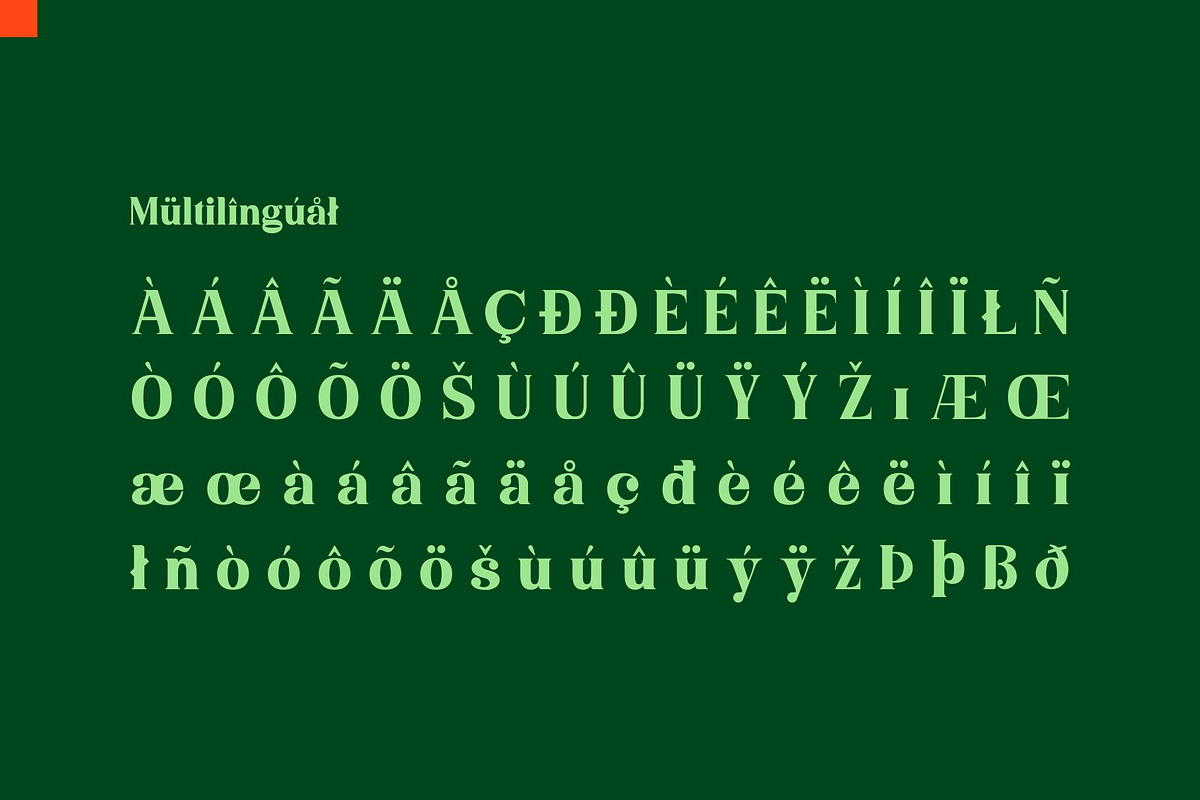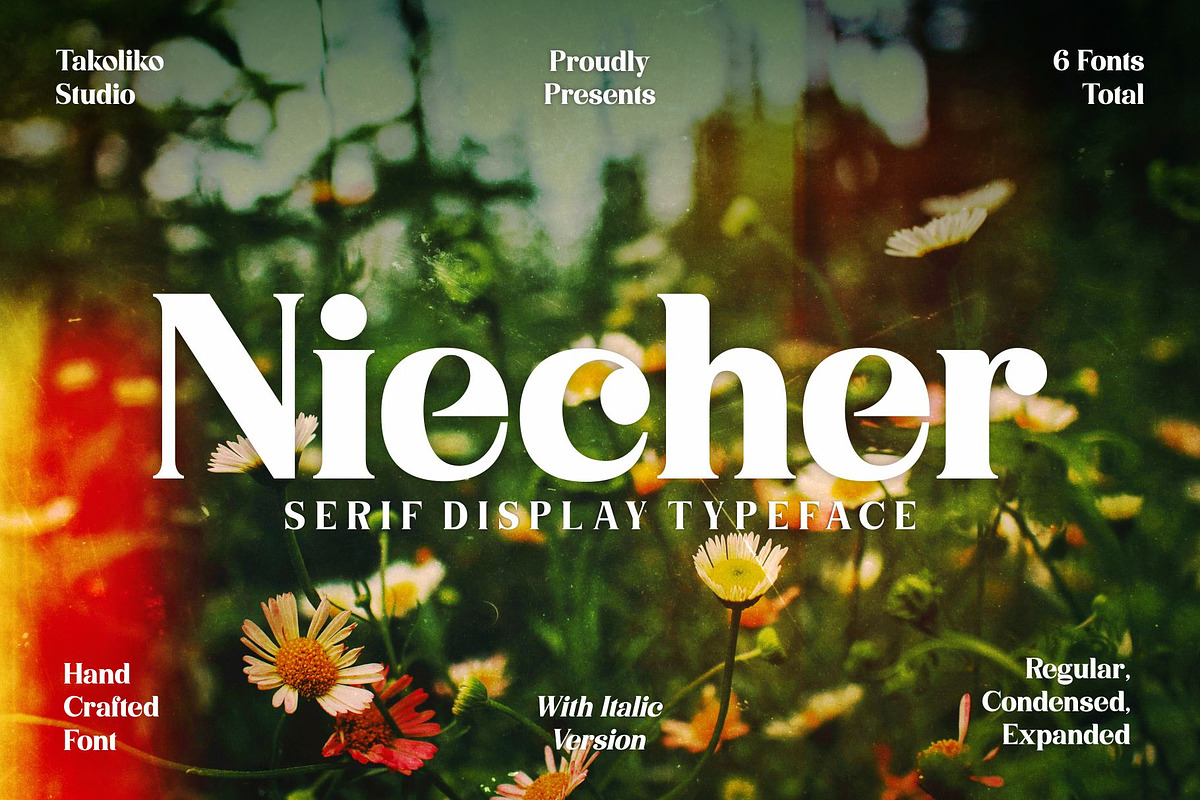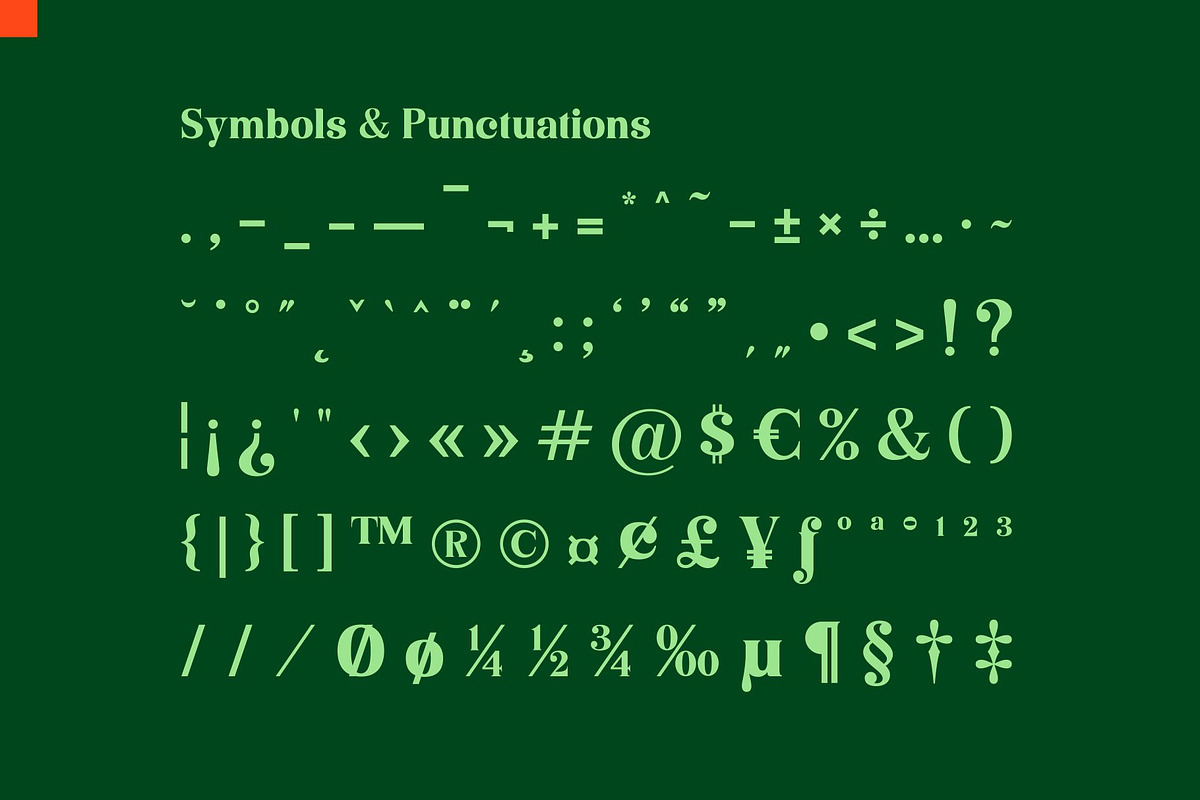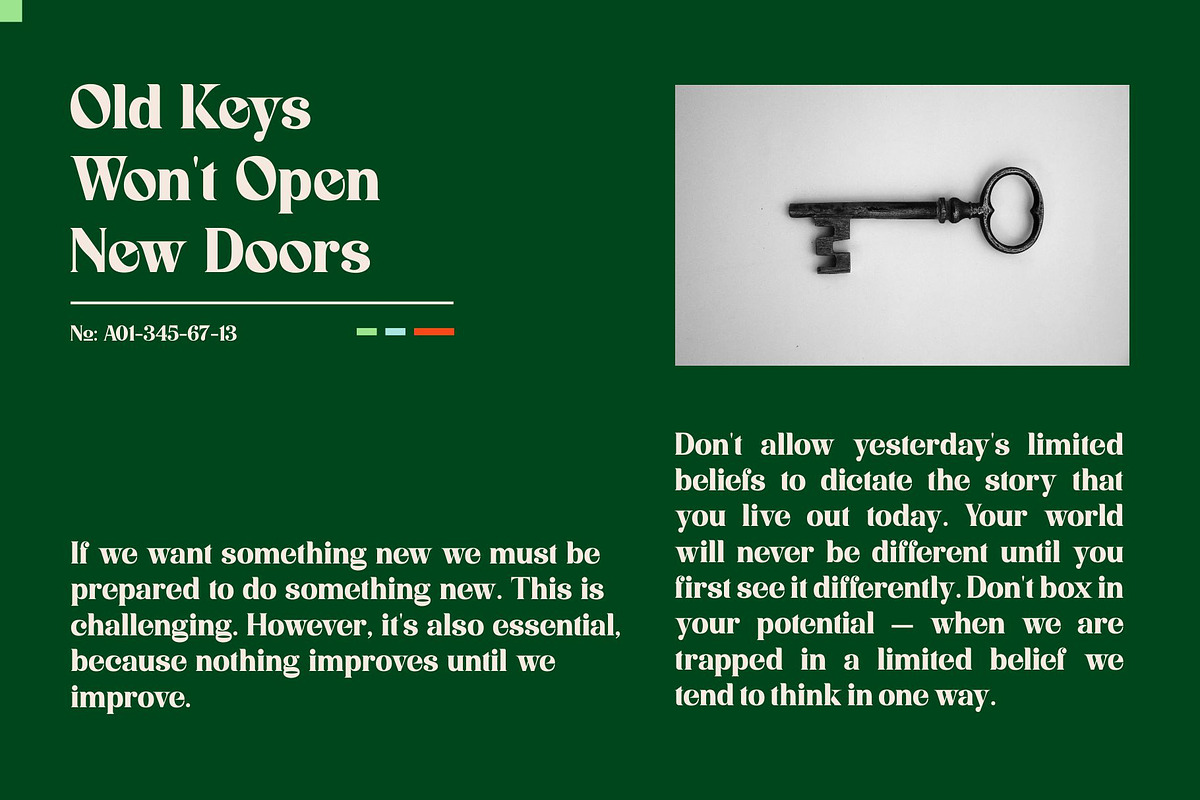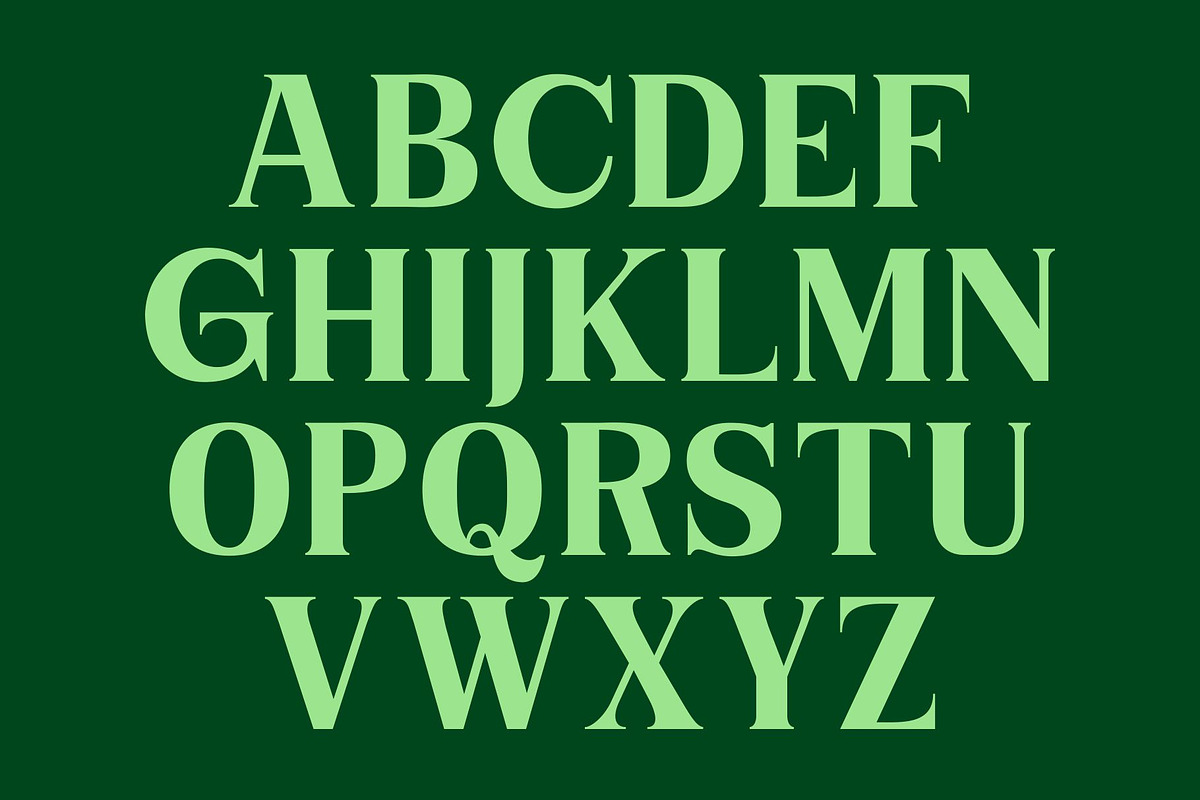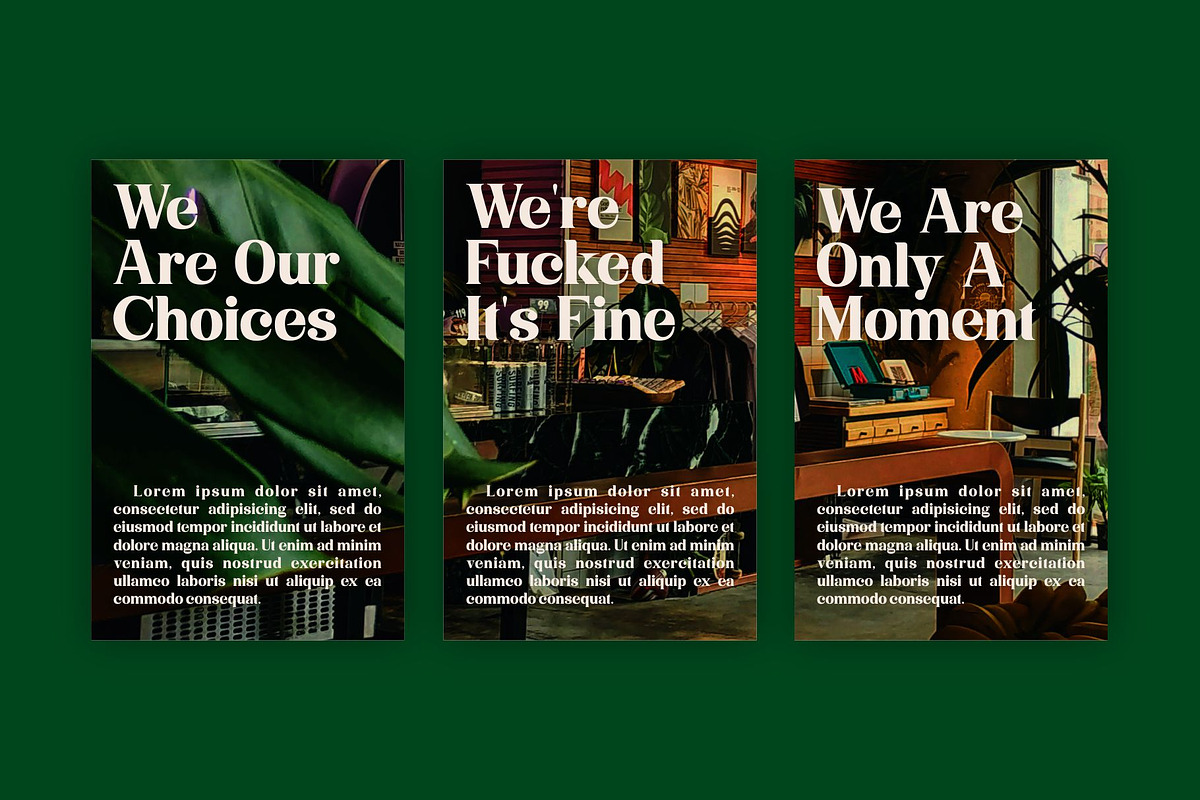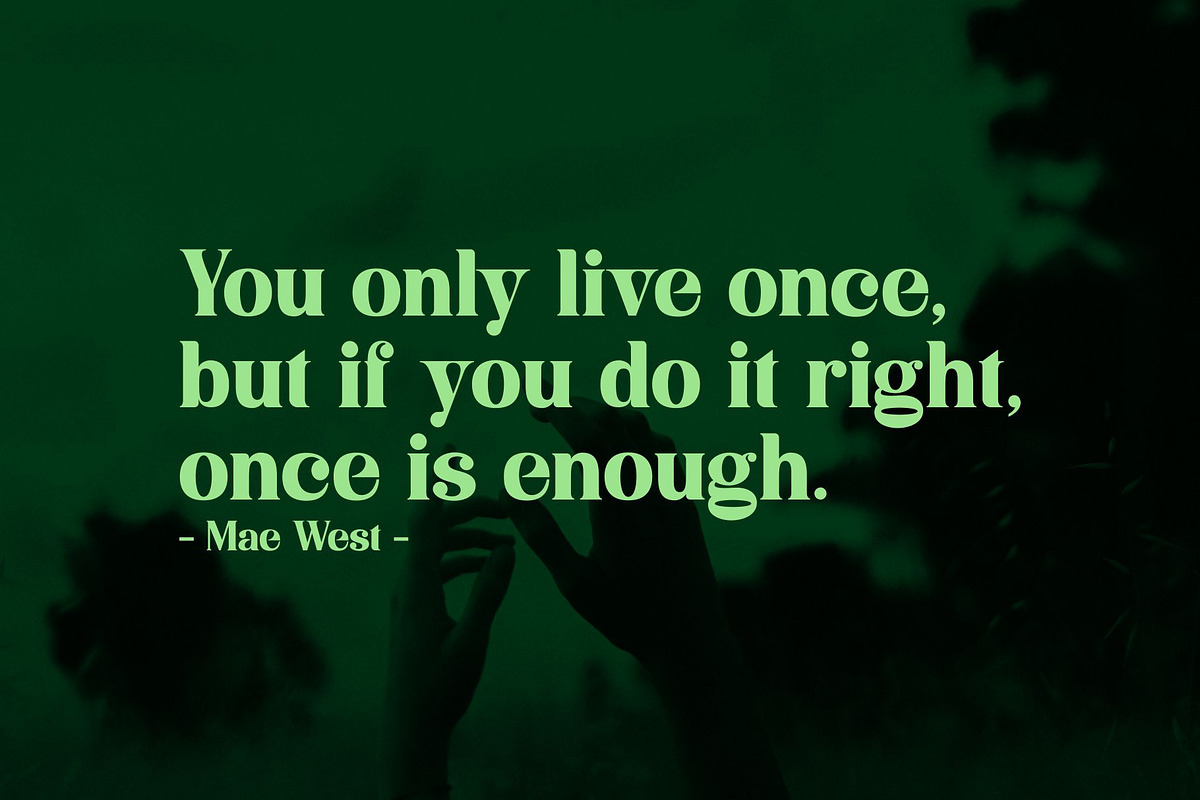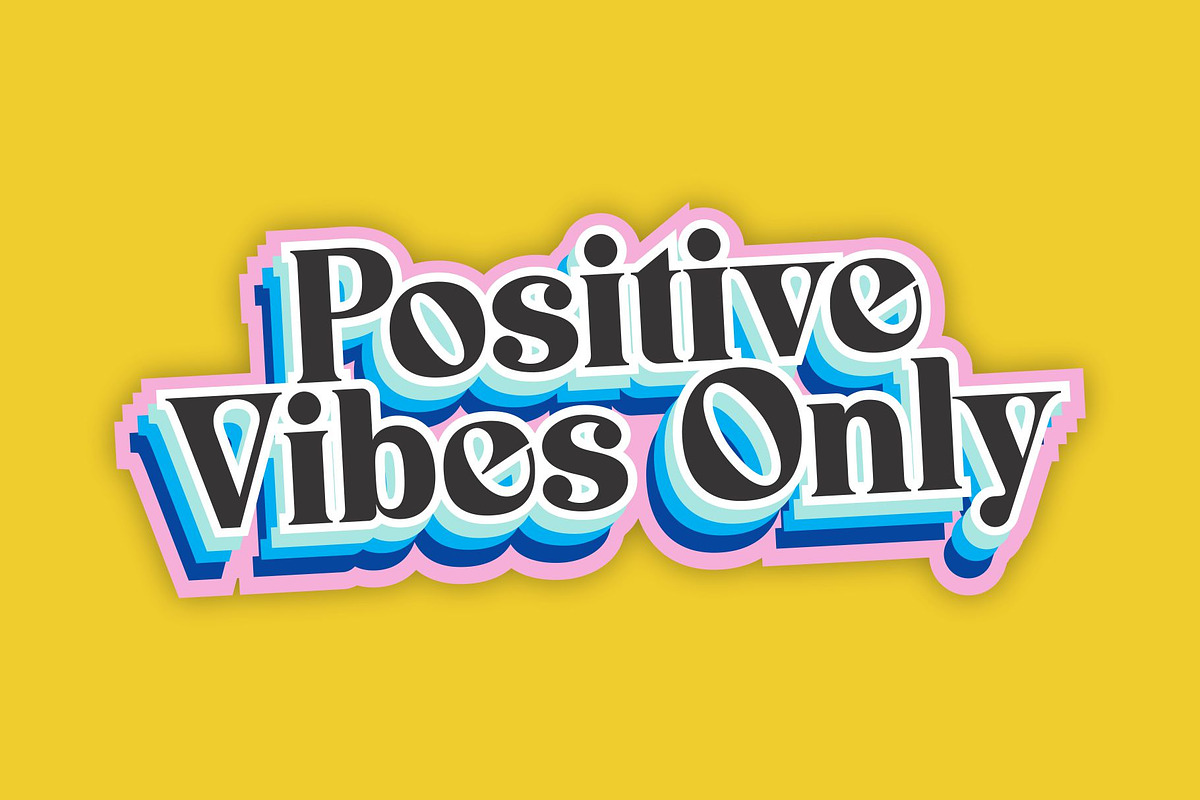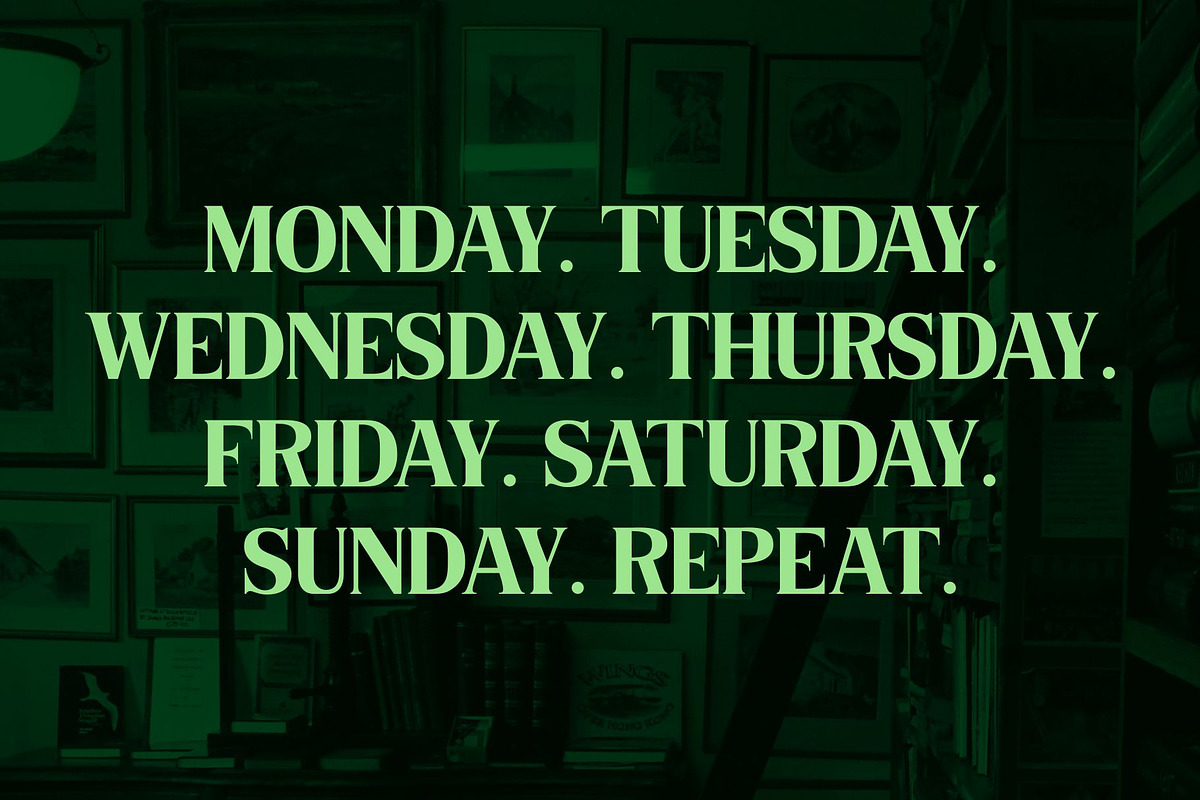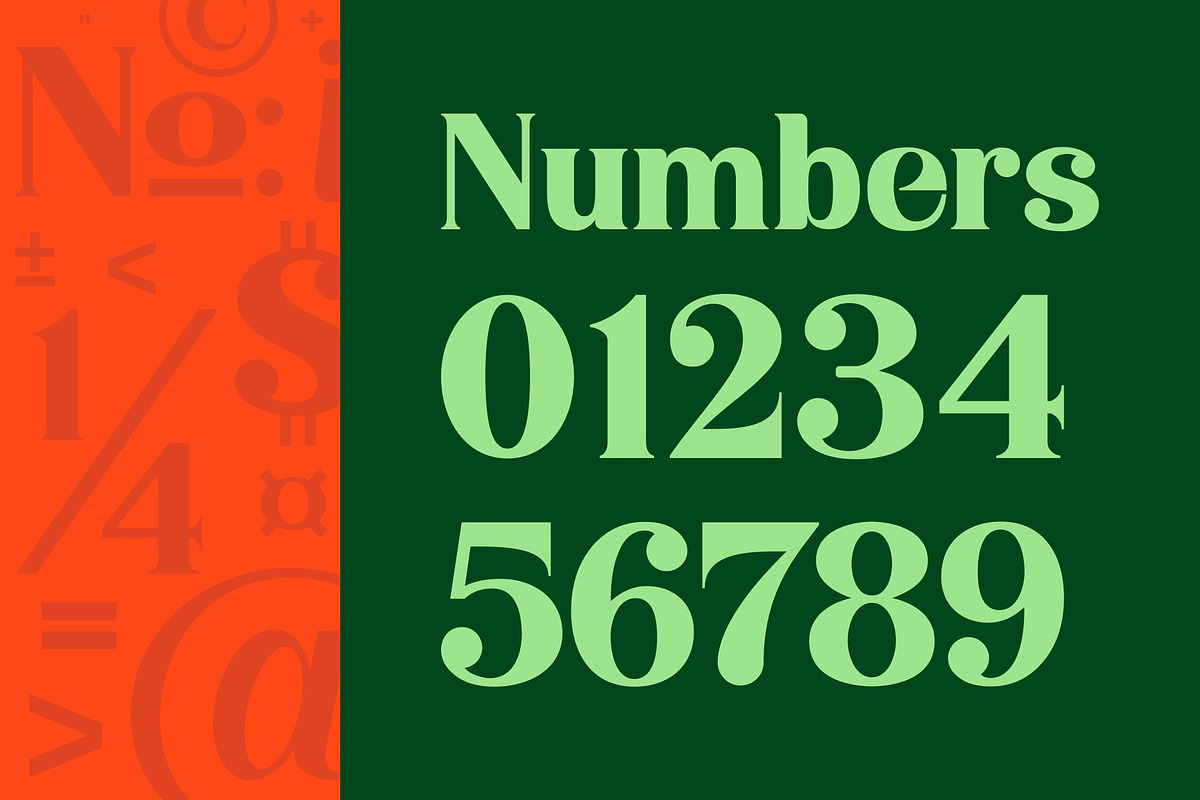
Niecher-Serif Display
Immerse yourself in the world of typography with Niecher, a masterfully designed serif display font. Embroidered with a blend of sophistication and dynamic versatility, Niecher defines your designs with a fresh, playful, yet formal style. The font showcases a dynamic curve infused with a touch of sharpness at the tail, presenting both elegance and a chic aesthetic. What sets Niecher apart? It comes with an alternate version for better adaptability and supports multiple languages to fire up your global communication. Unleash your creative potential and let your designs speak volumes with the compelling charm of Niecher.